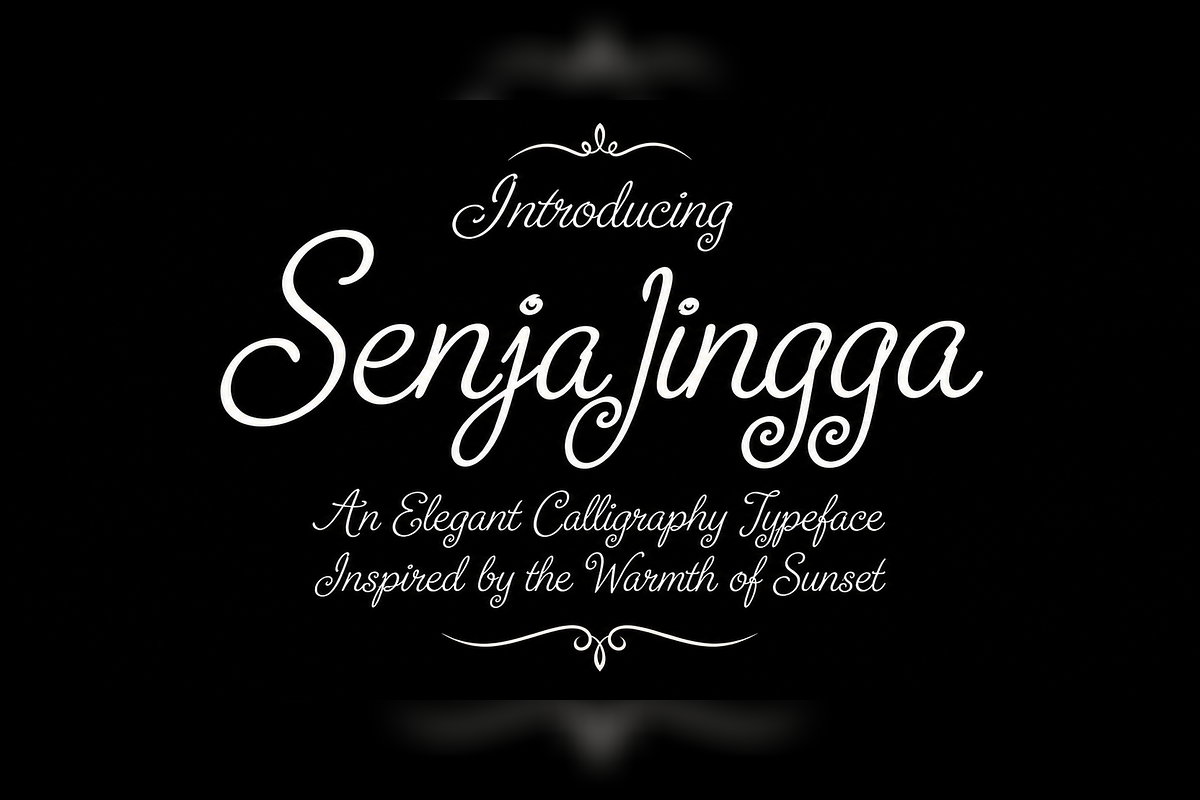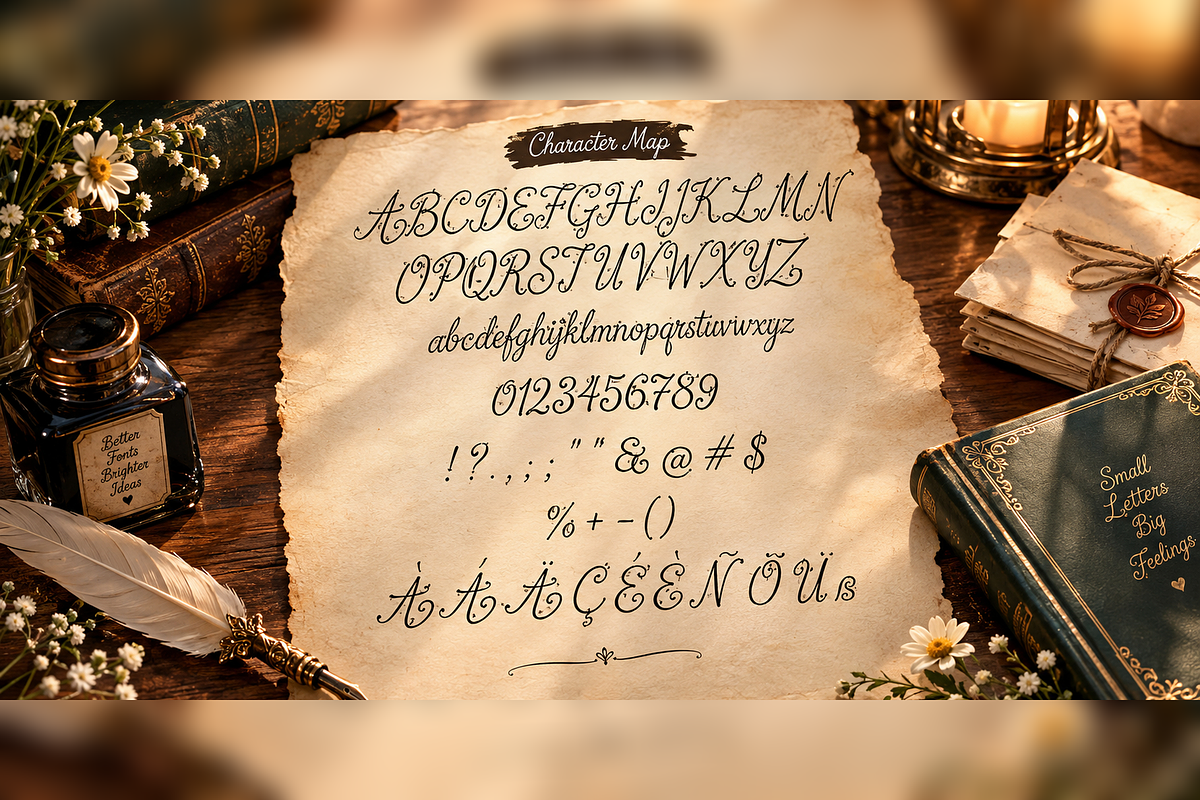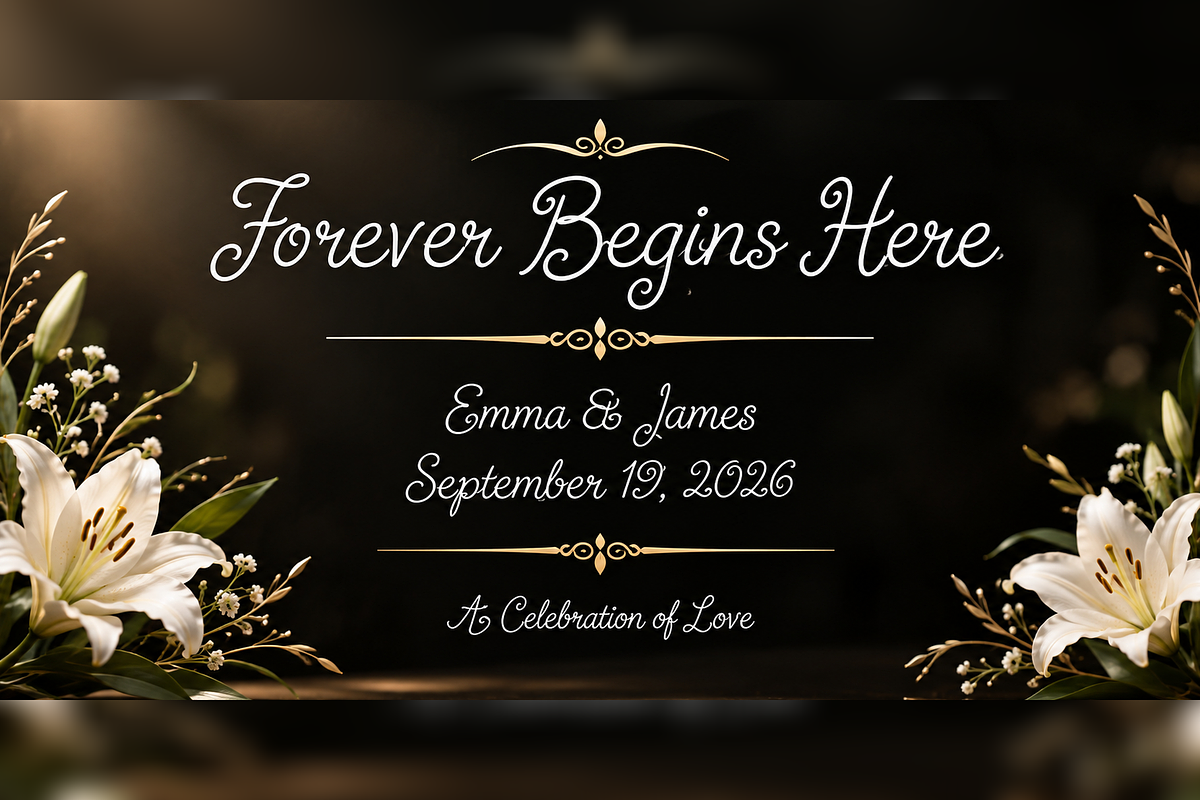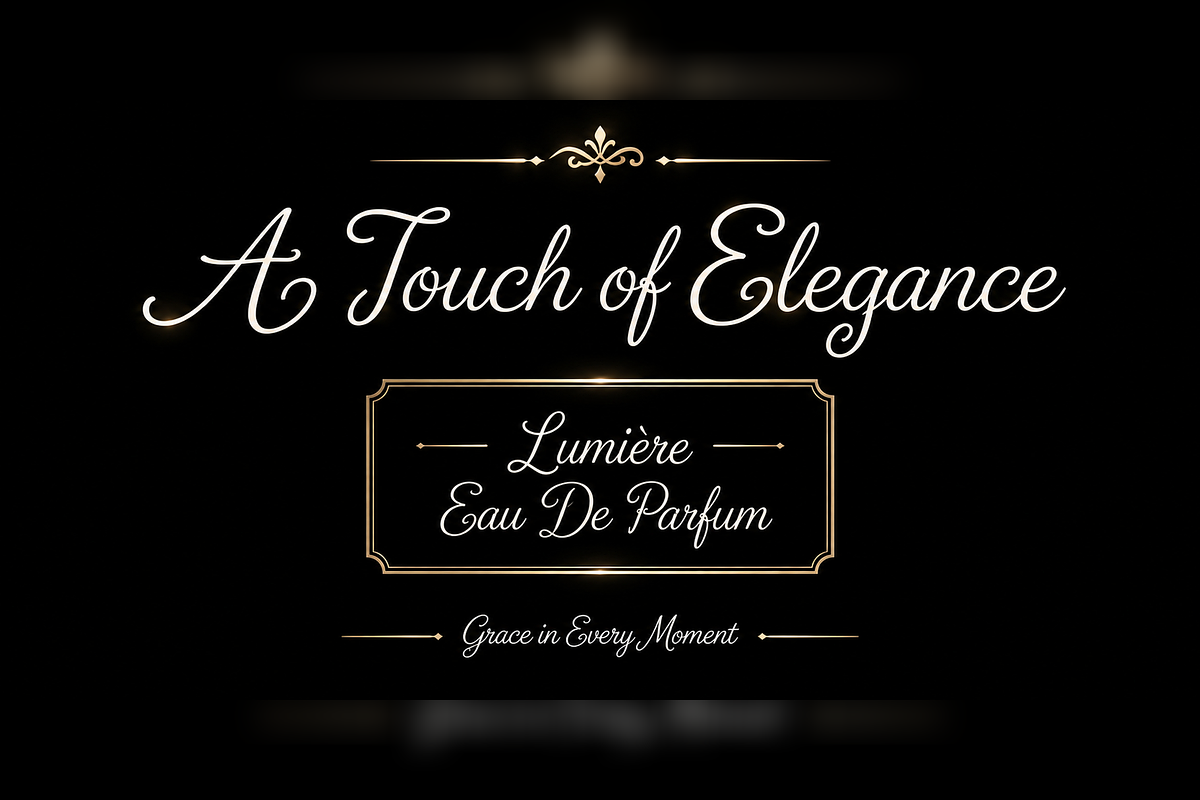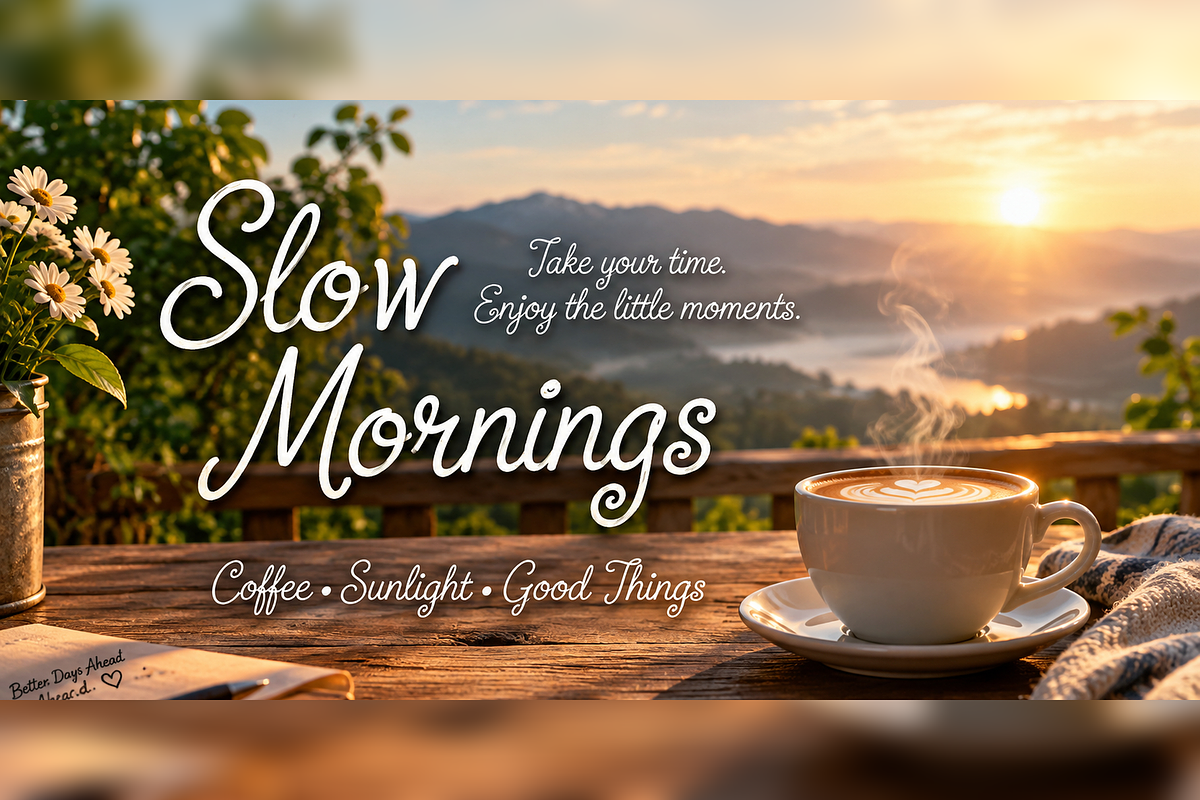
Senja Jingga Romantic Calligraphic
Senja Jingga is an elegant and romantic calligraphy typeface inspired by the warm glow of sunset. With graceful flowing strokes, expressive swashes, and a refined handwritten character, it brings a sophisticated and feminine touch to every design.
Perfect for wedding invitations, logos, branding, beauty products, perfume packaging, greeting cards, stationery, social media designs, and lifestyle projects, Senja Jingga is designed to make headlines, names, and short phrases feel personal and memorable.
Its smooth curves and distinctive flourishes create a luxurious yet natural appearance, making it versatile for both elegant formal designs and warm, intimate creative projects.
Senja Jingga — where graceful lettering meets the warmth of sunset.